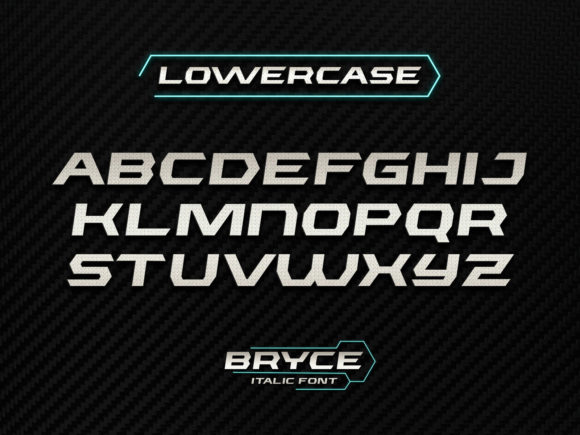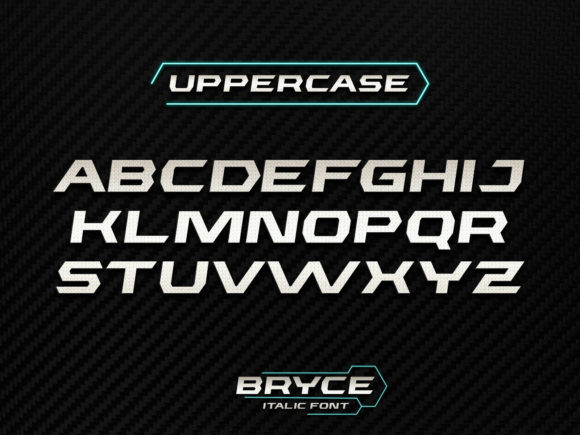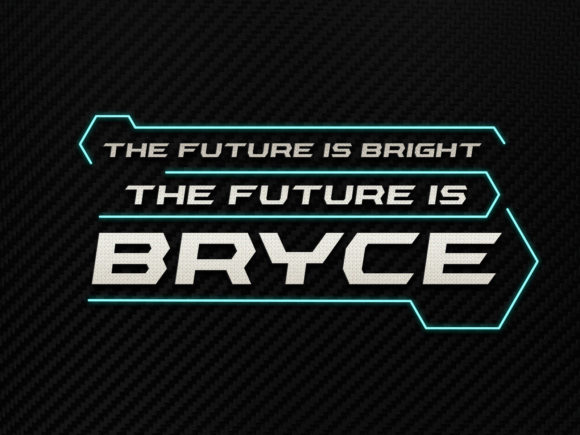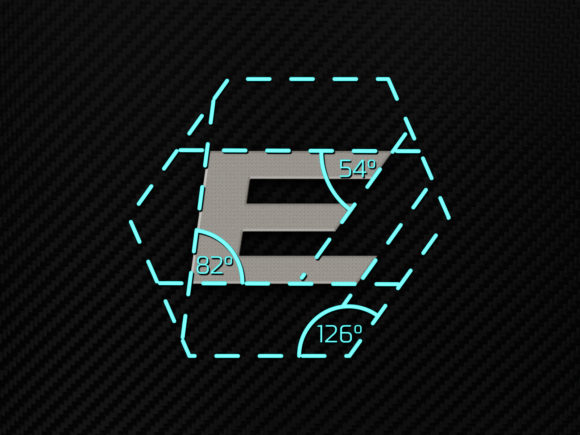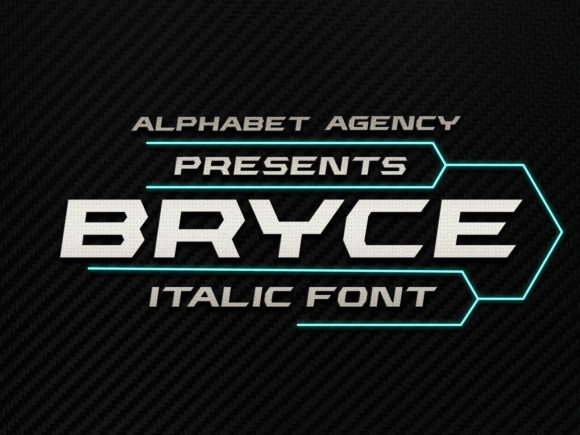
Bryce Font: The Ultimate Display Font for Bold and Edgy Designs
Are you tired of using the same old fonts for your designs? Look no further than the Bryce Font, a cool, bold, and robotic display font that’s sure to take your creations to the next level. With its unique and edgy style, Bryce is the perfect addition to any font library, and can instantly enhance any project.
The Features of Bryce Font
Bryce Font is a sans-serif display font that’s designed to make a statement. Its bold and robotic style gives it a futuristic feel that’s perfect for a wide range of design projects, from posters and flyers to logos and branding materials. The font features clean lines, sharp edges, and a geometric shape that’s both modern and sleek.
One of the standout features of Bryce Font is its versatility. Whether you’re designing for print or digital, this font can be used in a variety of contexts, from large headlines to smaller body text. Its bold style ensures that it will always stand out, even at smaller sizes.
The Benefits of Using Bryce Font
So why should you choose Bryce Font for your next design project? Here are just a few benefits of using this amazing font:
- Instant Impact: The bold and edgy style of Bryce Font makes it perfect for creating eye-catching headlines and titles that grab attention.
- Versatility: Whether you’re designing for print or digital, Bryce Font can be used in a wide range of contexts, from posters and flyers to logos and branding materials.
- Unique Style: With its robotic and futuristic feel, Bryce Font adds a unique touch to any design project, setting it apart from more traditional fonts.
- Easy to Read: Despite its bold style, Bryce Font is surprisingly easy to read, even at smaller sizes.
Who Can Benefit from Using Bryce Font?
Bryce Font is a versatile font that can be used by a wide range of designers and crafters, including:
- Graphic Designers: Whether you’re working on a logo, brochure, or poster, Bryce Font is a great choice for adding a bold and edgy touch to your design.
- Branding Experts: If you’re looking for a font that will help your brand stand out, Bryce Font is a great option.
- Crafters: Whether you’re creating handmade cards, scrapbooking pages, or other craft projects, Bryce Font can add a unique and modern touch.
- Web Designers: With its clean lines and geometric shape, Bryce Font is also a great choice for web design projects, including website headers and titles.
Tips for Using Bryce Font
Here are a few tips for getting the most out of Bryce Font:
- Use it sparingly: Because of its bold style, Bryce Font can be overwhelming if used too much. Use it sparingly to create impact and add visual interest to your design.
- Pair it with a complementary font: For body text, pair Bryce Font with a complementary font that’s easy to read.
- Experiment with different colors: Bryce Font looks great in a variety of colors, so don’t be afraid to experiment and find the perfect shade for your design.
| Font Name | Bryce Font |
| Author | Alphabet Agency |
In conclusion, Bryce Font is a cool, bold, and robotic display font that’s sure to enhance any design project. With its unique style, versatility, and ease of use, it’s a great addition to any font library. Whether you’re a graphic designer, branding expert, crafter, or web designer, Bryce Font is a great choice for adding a modern and edgy touch to your creations.